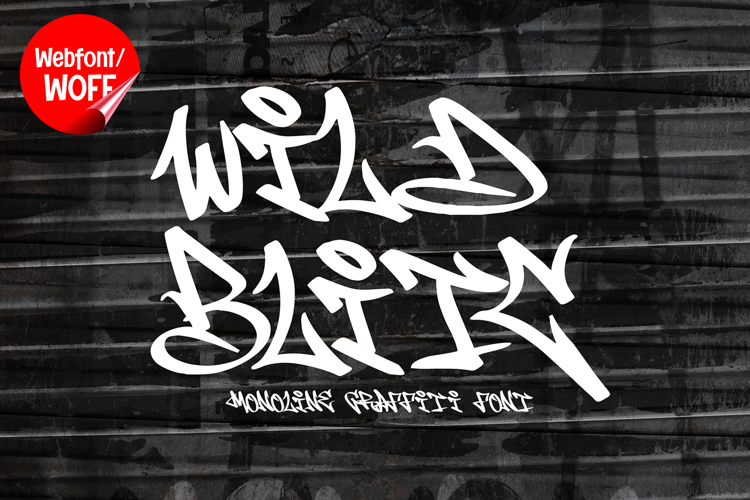
Wild Blitch | Monoline Graffiti Webfont for Urban Street
Wild Blitch is a monoline graffiti webfont designed to bring authentic street culture and expressive urban style into modern website design. Inspired by freestyle tagging, marker lettering, and underground graffiti aesthetics, this font features smooth monoline strokes combined with energetic movement that create a bold and artistic visual identity. It is an excellent choice for projects that aim to deliver modern urban typography with a clean yet rebellious street-art atmosphere.
Wild Blitch includes a complete set of uppercase characters designed with monoline graffiti aesthetics. The letterforms feature flowing handwritten movement and balanced line consistency, creating a sleek and expressive appearance inspired by graffiti tags and urban calligraphy. These characteristics make it ideal for headlines, banners, hero sections, promotional graphics, and featured content where strong urban visuals are needed.
In addition to letters, the font includes numbers and punctuation, allowing flexible usage across various parts of a website. It works well for streetwear branding, music platforms, gaming websites, creative portfolios, social media campaigns, and urban-inspired digital projects. Each character maintains a consistent monoline graffiti style, ensuring a cohesive and unified visual identity throughout the design.
With multilingual support, Wild Blitch includes a wide range of accented characters, making it suitable for international websites and global audiences. This ensures content remains clear and visually consistent across different languages while preserving the smooth and expressive graffiti aesthetic.
The monoline graffiti style of Wild Blitch makes it especially suitable for hip hop branding, urban-themed websites, entertainment projects, and youth-focused digital campaigns. Its flowing lines and dynamic structure create a modern street-art atmosphere that helps websites stand out in visually competitive environments. The clean monoline construction balances the expressive graffiti influence, resulting in a stylish and versatile visual appearance.
Despite its decorative and expressive appearance, Wild Blitch is designed with readability in mind. The spacing and proportions are carefully balanced to ensure clarity, particularly in display sizes. This allows designers to use the font effectively for impactful headings and short content without sacrificing usability.
Wild Blitch is a webfont that combines monoline typography with graffiti-inspired aesthetics and modern digital performance. Its smooth strokes, urban character, and energetic movement create a distinctive typographic presence that enhances website design. For projects that require a stylish, edgy, and visually engaging graffiti font, Wild Blitch offers a versatile and creative solution.